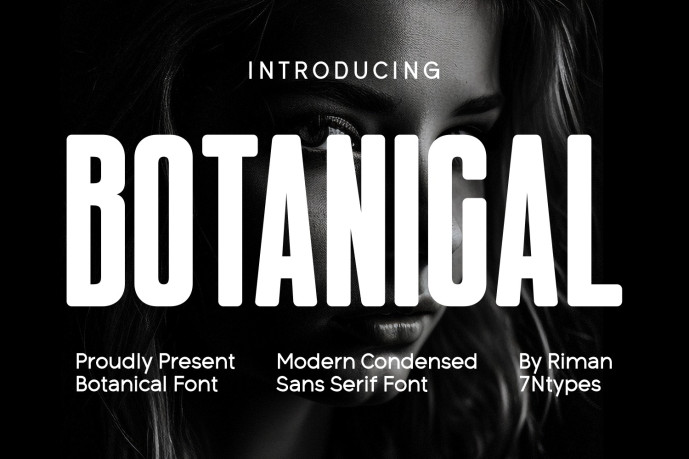
Botanical, a contemporary, compact sans-serif font, stands tall and strong, harmoniously merging height with resilience. Crafted with an eye for detail and a thirst for impact, it’s uniquely tailored to fit the upmarket requirements of professional display typography. Its svelte geometric block structure and nuanced vertical contrast render it the perfect fit for dynamic headlines, chic fashion branding, cinematic film posters, and luxury product packaging.
Botanical’s proud, towering elegance punctuates your work with an advanced, stylish, and evergreen appeal. The font is readily available in OTF and TTF versions for an effortless crossover into your design software and digital printing platforms. Embodying a delightful fusion of modernity and cheerfulness, Botanical imparts a joyous vibe to all your creative endeavors. Its soft, rounded edges paired with its audacious, approachable aura sets the stage for a variety of applications, from Cricut crafts and T-shirt designs to children’s books, greeting cards, and stickers. It shines bright on the social media front too, rendering engaging graphics that stand out. Encapsulate a romantic, current, and tender note in your designs with this highly versatile display font – Botanical!